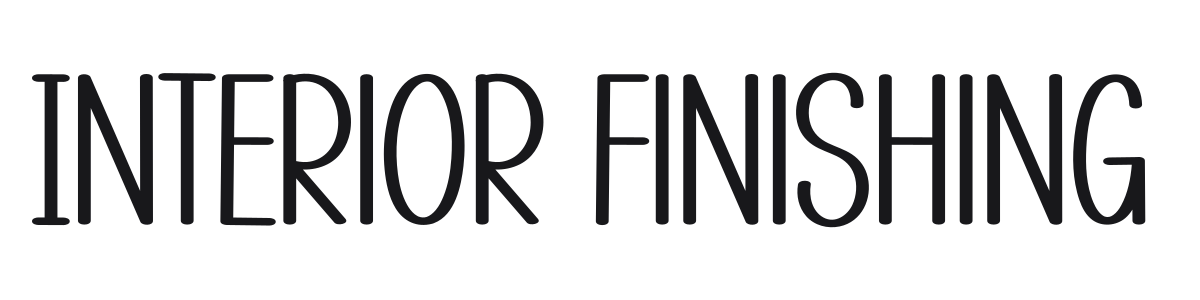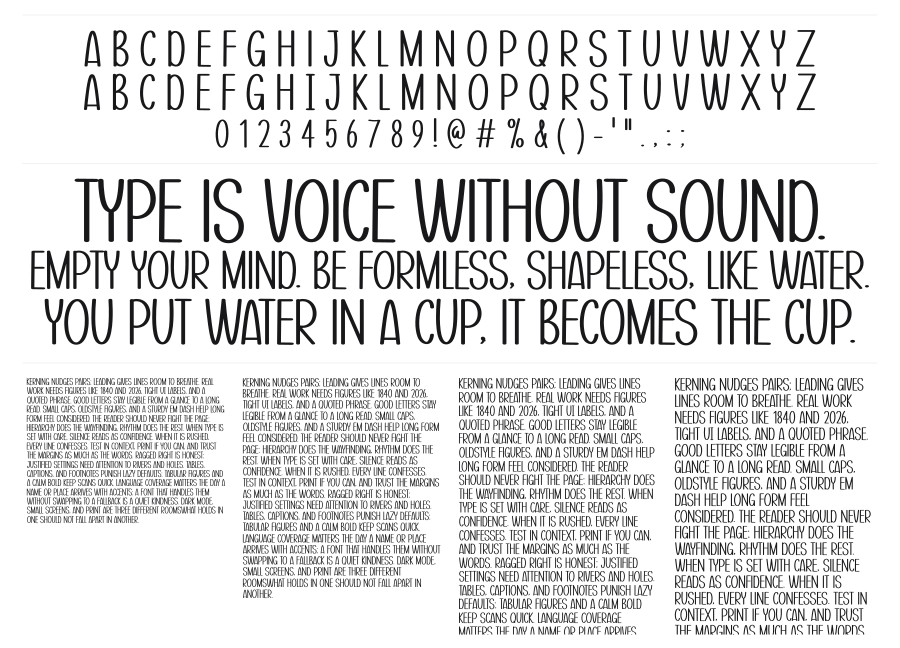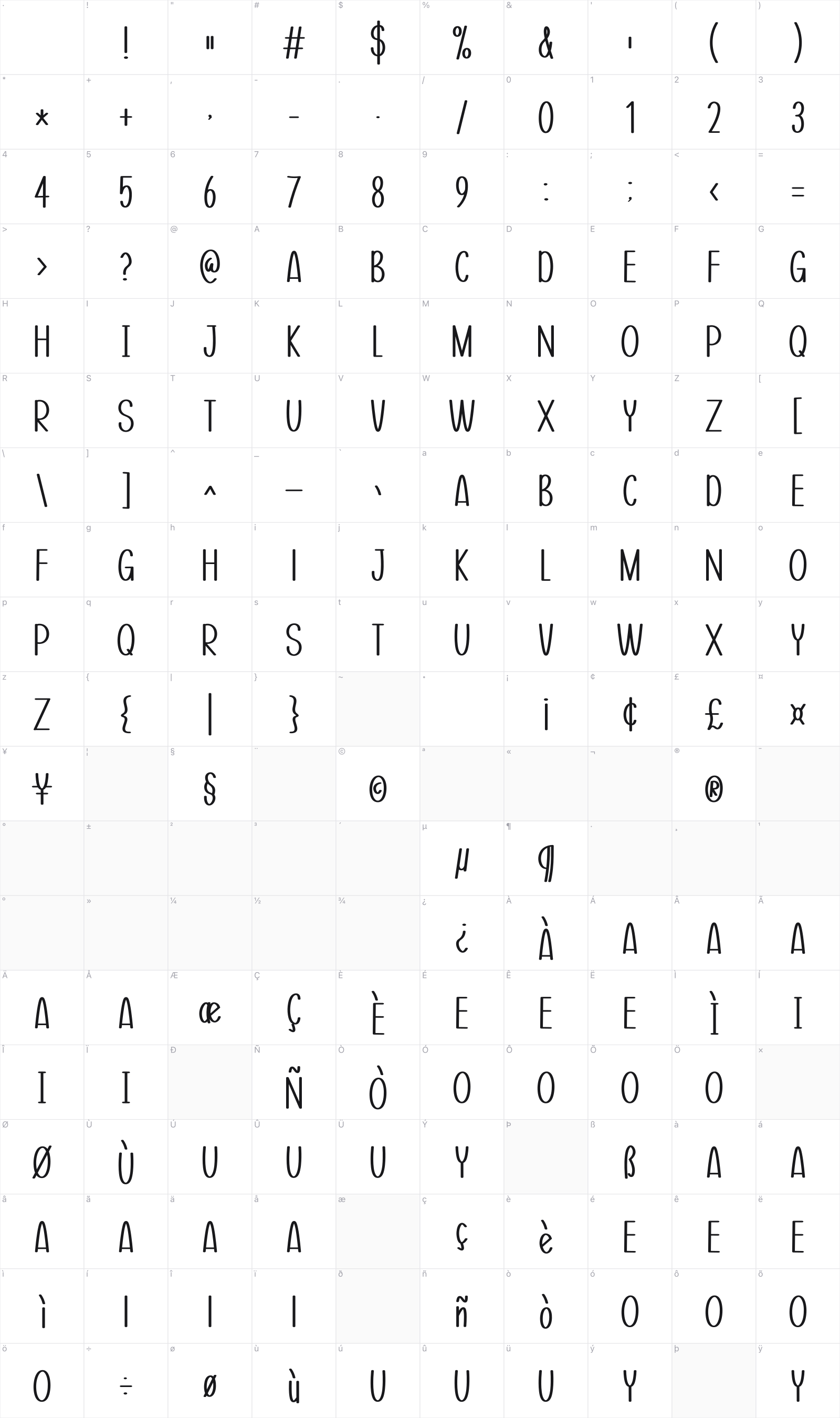
Interior Finishing
Interior Finishing is a condensed sans-serif with a hand-influenced warmth that keeps it from feeling stiff or mechanical. The tall narrow proportions and slight stroke irregularities give it a crafted, boutique character that works well for branding, editorial headers, and lifestyle packaging. It sits comfortably between a clean grotesque and a casual lettered display face.